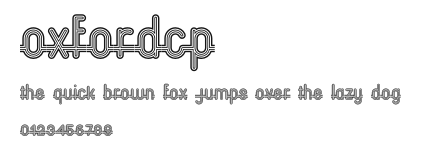
About OxfordCP.otf
OxfordCP.otf is a modern, elegant sans-serif font designed for ultimate readability and visual harmony. Perfect for branding, headlines, web design, and print materials.